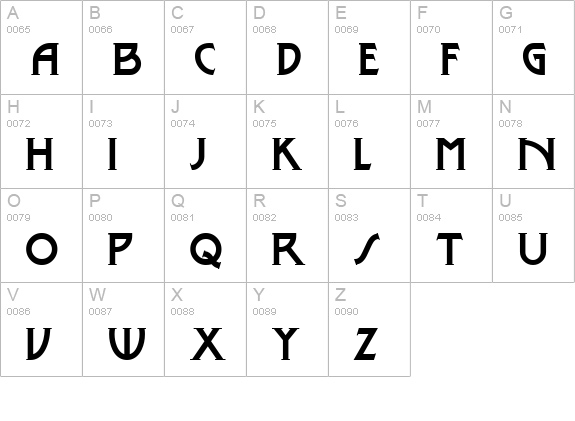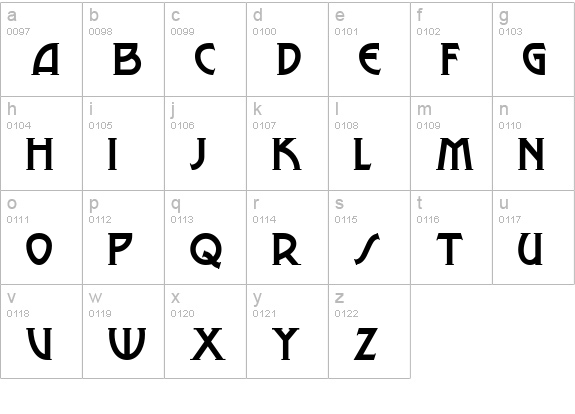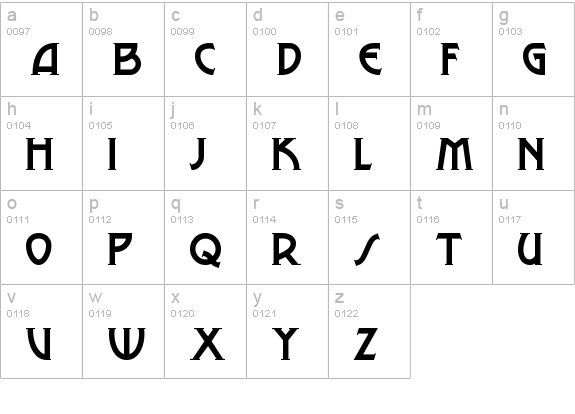
Lance Corporal NF Font Details
Lance Corporal NF font is a stunning display typeface that exudes authority and strength. With its bold and commanding letterforms, this font is perfect for headlines, titles, and logos that demand attention. What sets Lance Corporal NF font apart is its unique blend of modern and vintage design elements. The sharp, angular edges give it a contemporary feel, while the subtle curves and ornamental details add a touch of classic elegance. This fusion of styles makes Lance Corporal NF font versatile and suitable for a wide range of projects. One of the standout features of Lance Corporal NF font is that it is available for free download at FontsMarket.com. This means that designers and creatives can easily access and utilize this impressive typeface without any cost. Whether you're designing a military-inspired poster, a powerful branding project, or a striking editorial layout, Lance Corporal NF font will bring your compositions to life with its bold presence and exceptional legibility. Its generous character set includes uppercase letters, numerals, punctuation marks, and special symbols, ensuring that you have all the tools you need to make a statement. Download Lance Corporal NF font for free at FontsMarket.com and unleash its commanding power in your next design project. Its availability and versatility make it an essential addition to any designer's toolkit. Stand out from the crowd with this remarkable typeface that combines modern aesthetics with a timeless appeal.